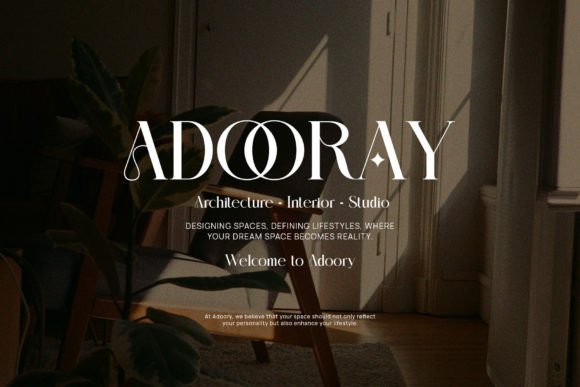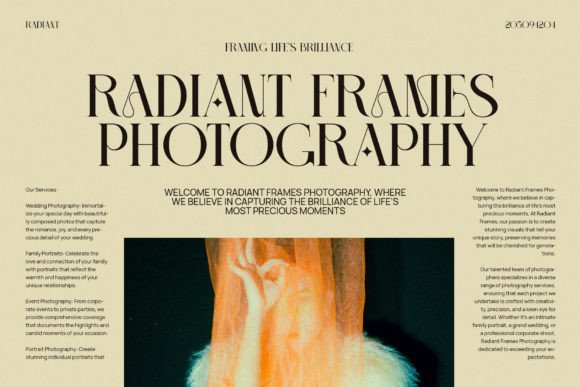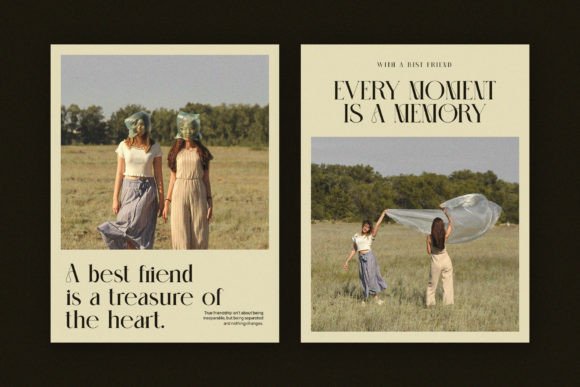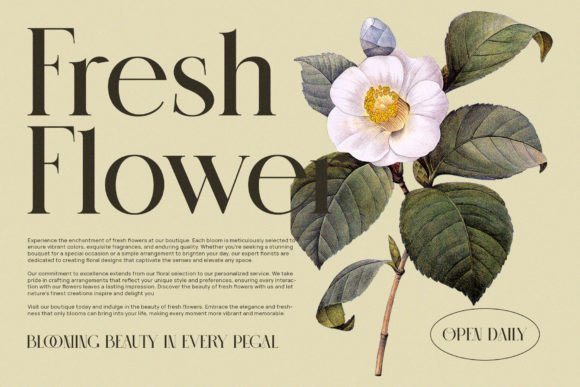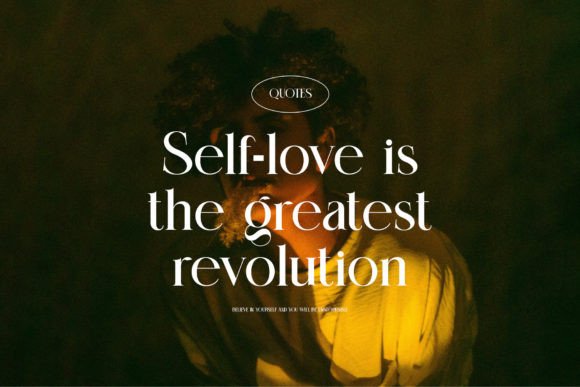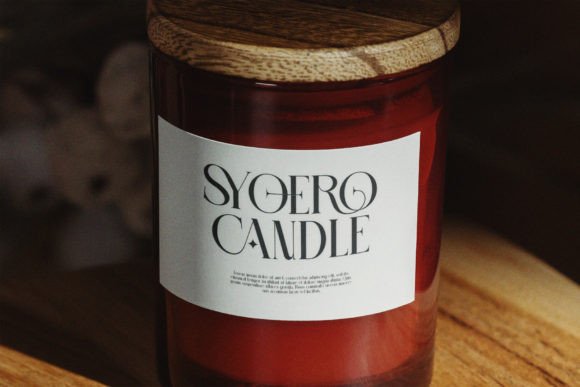
Introduction to Mesko Font
Do you remember the moment when you stumbled upon the perfect font for your project? The one that instantly brought your design to life and made it feel truly special? For many designers, that moment is a game-changer. And if you’re reading this, you’re probably on the hunt for the next big thing in typography.
Enter the enchanting Mesko Font, a versatile serif font that’s guaranteed to add a touch of romance to your next creative project. With its wide range of applications, from greeting cards to headlines, Mesko Font is a valuable addition to any designer’s toolkit. Whether you’re working on a free download or a high-quality design resource, Mesko Font’s transparent background and high-quality design make it the perfect choice for designers looking to elevate their work.
So, what makes Mesko Font so special? And how can you use it to take your designs to the next level? Let’s dive in and explore the world of Mesko Font together.
Key Features of Mesko Font
Honest Review: Mesko Font
I recently had the chance to work with the Mesko Font, and I must say it’s been a game-changer for my creative projects. The free download was a huge plus, and the fact that it comes with a transparent background made it super easy to incorporate into my designs.
Here are some things that I loved about the Mesko Font: ✨
- High-quality typography that adds a professional touch to any design
- Easy to use, even for those who aren’t design-savvy
- Comes in a variety of weights and styles, making it perfect for a range of creative projects
- Perfect for those who need a free design resource that won’t compromise on quality
That being said, I did encounter a few limitations: ⚠️
- Some of the weights and styles can be a bit difficult to read at smaller font sizes
- Limited language support, which may be a concern for those working on international projects
Overall, I’m really impressed with the Mesko Font and would highly recommend it to anyone looking for a high-quality, easy-to-use font for their creative projects. With its transparent background and free download, it’s a design resource that won’t break the bank.
The Mesko Font is ideal for creative projects, such as logo designs, branding materials, and marketing materials. It’s also suitable for use in presentations, documents, and websites that require a clean and modern look.